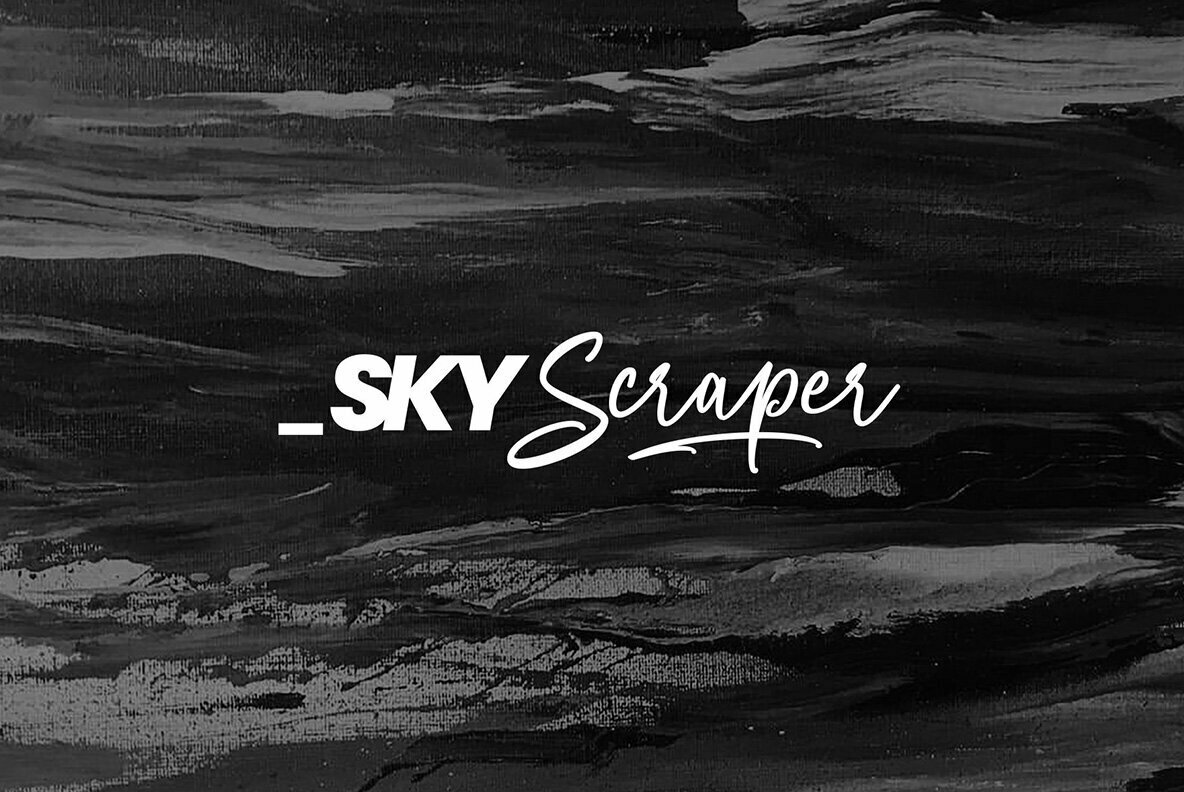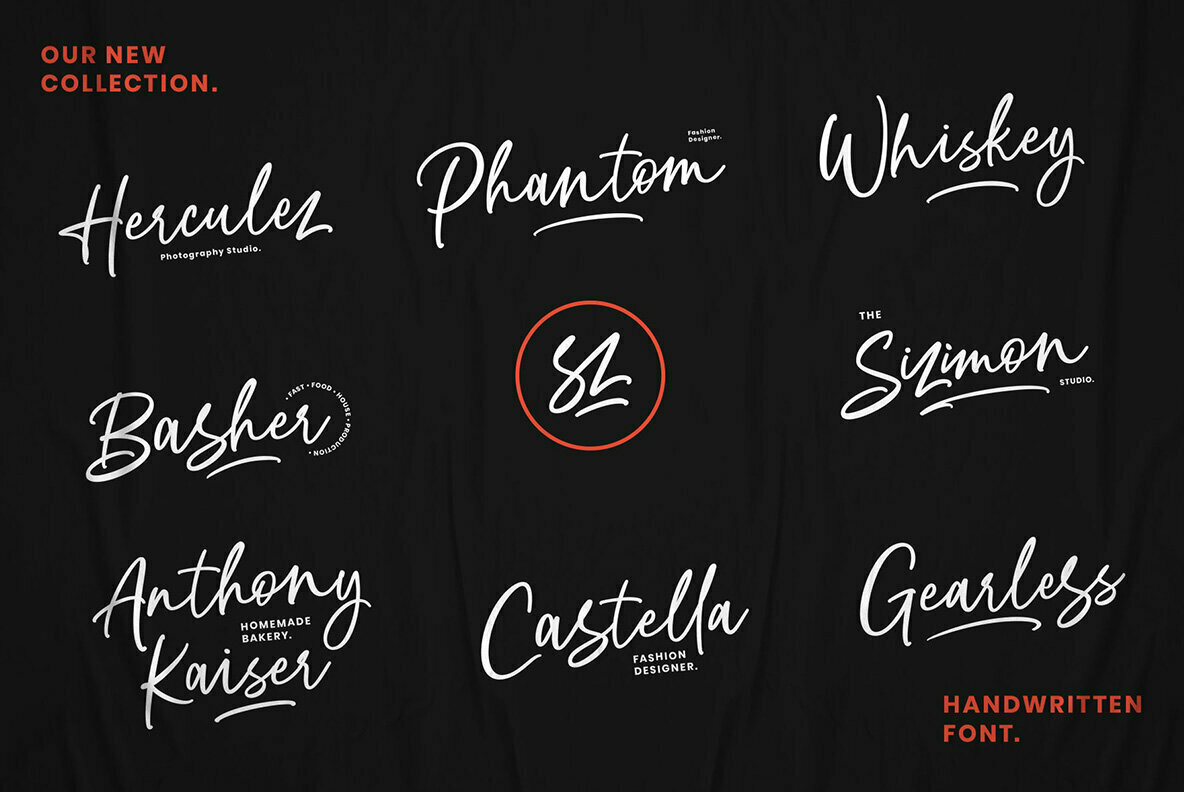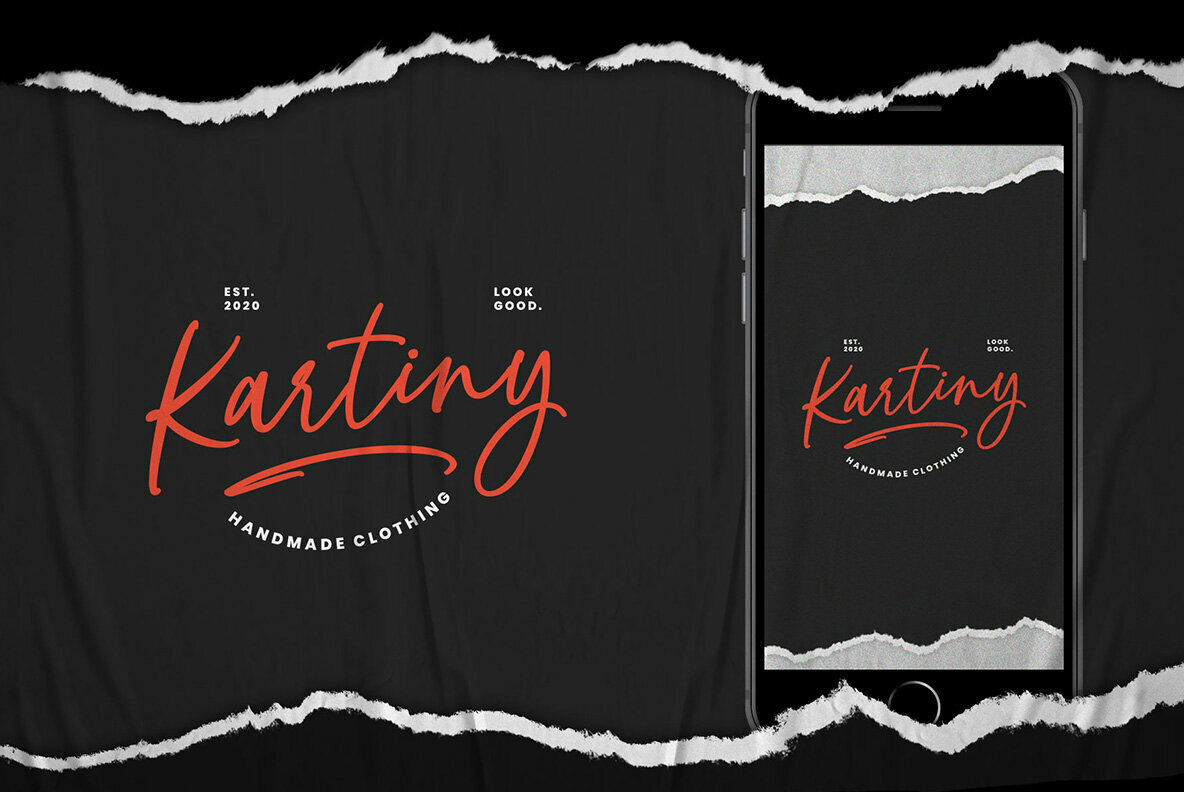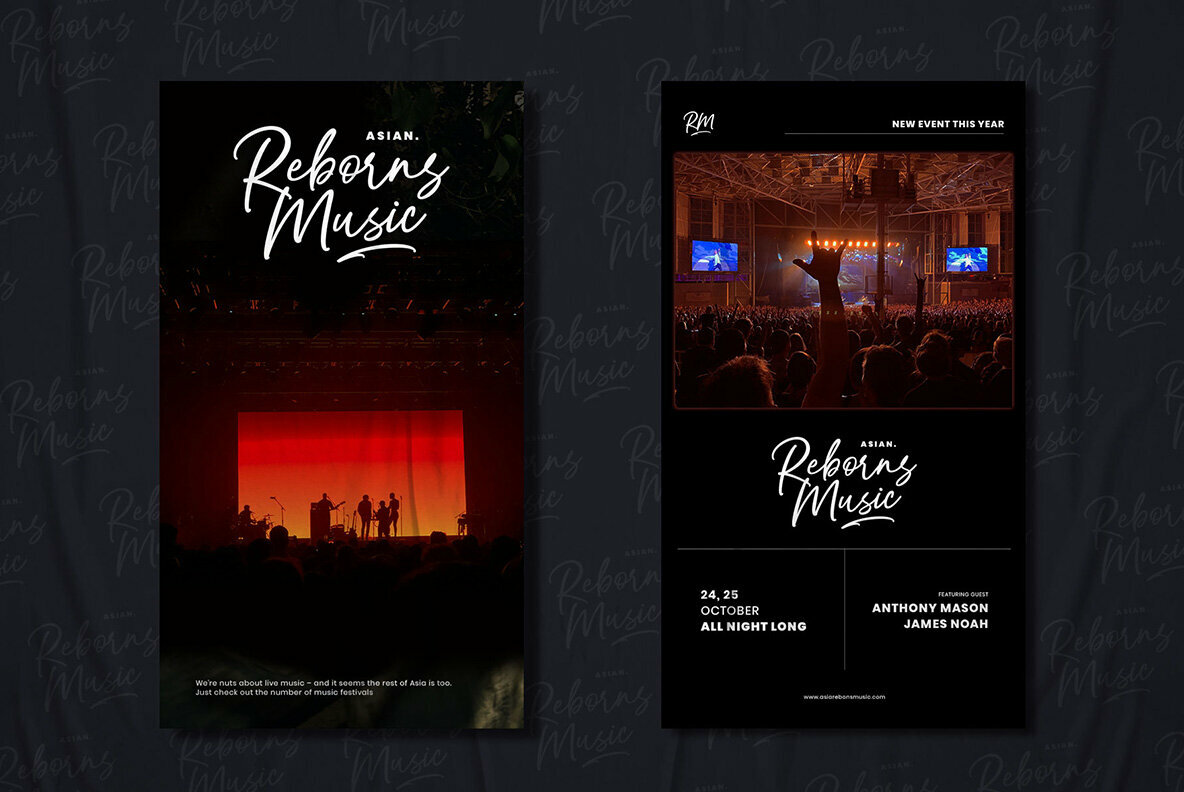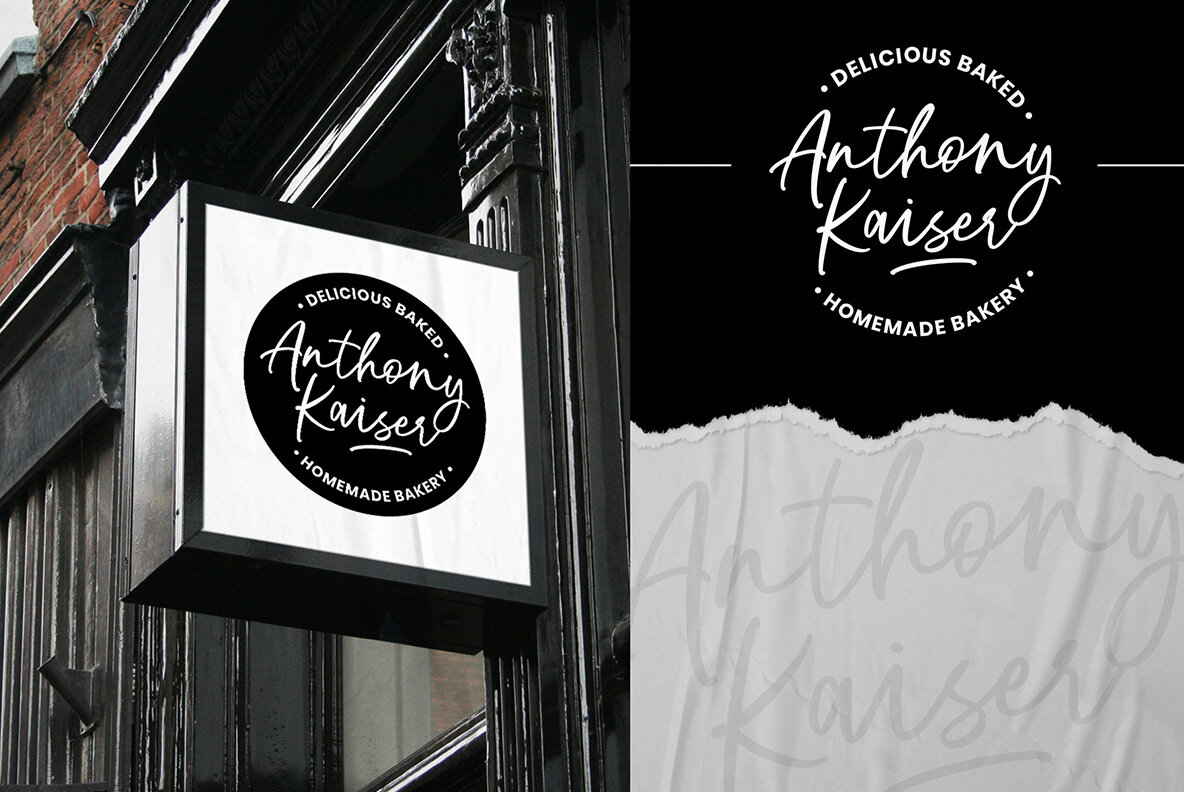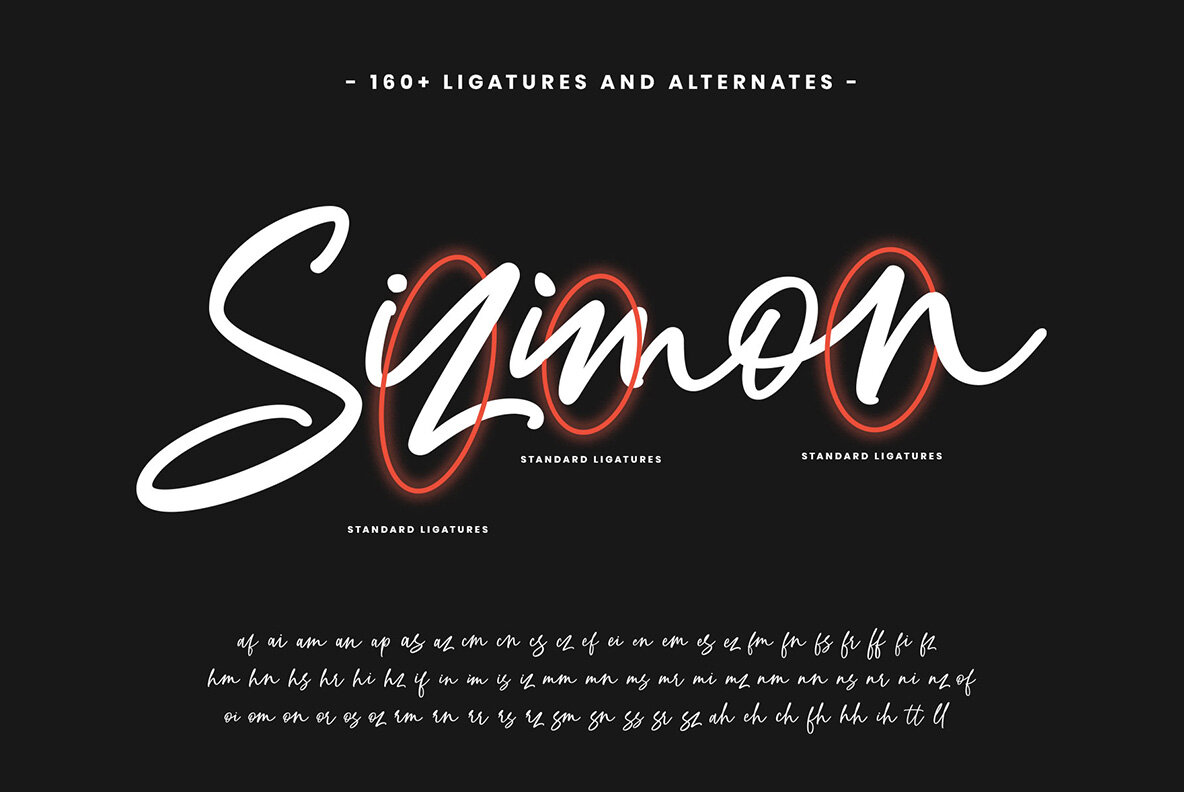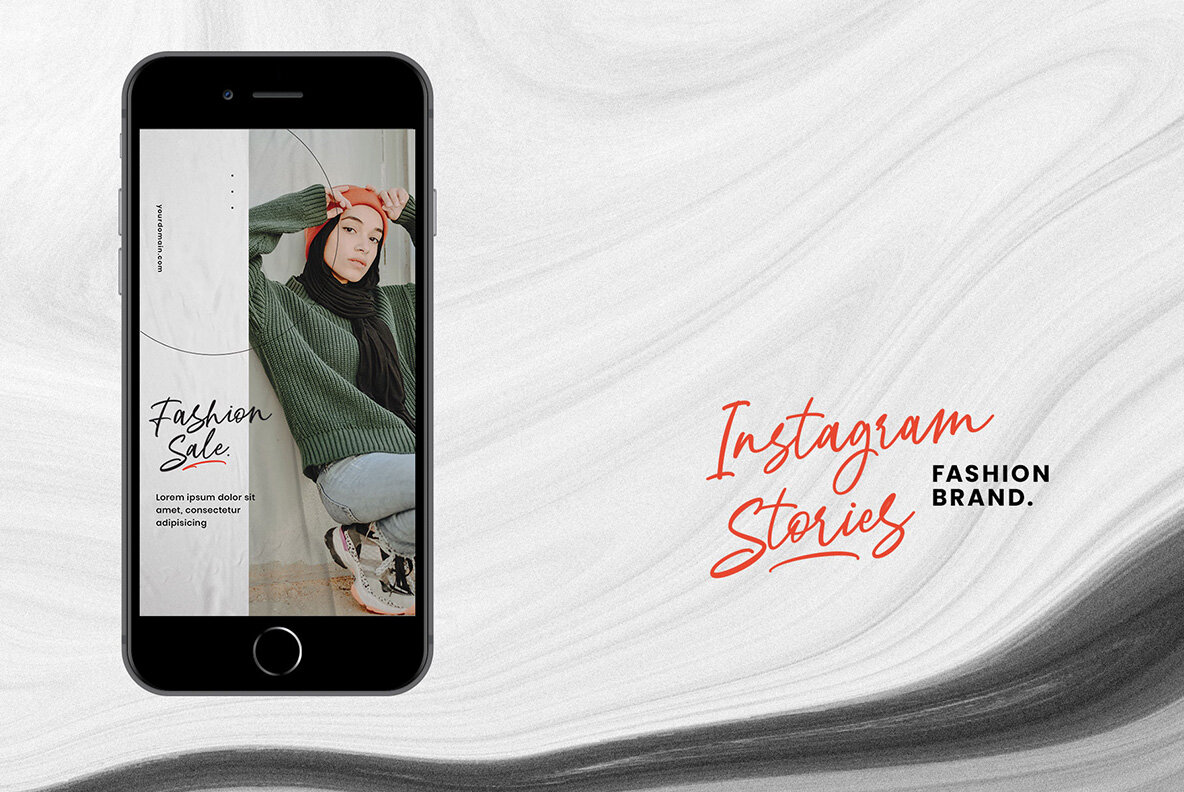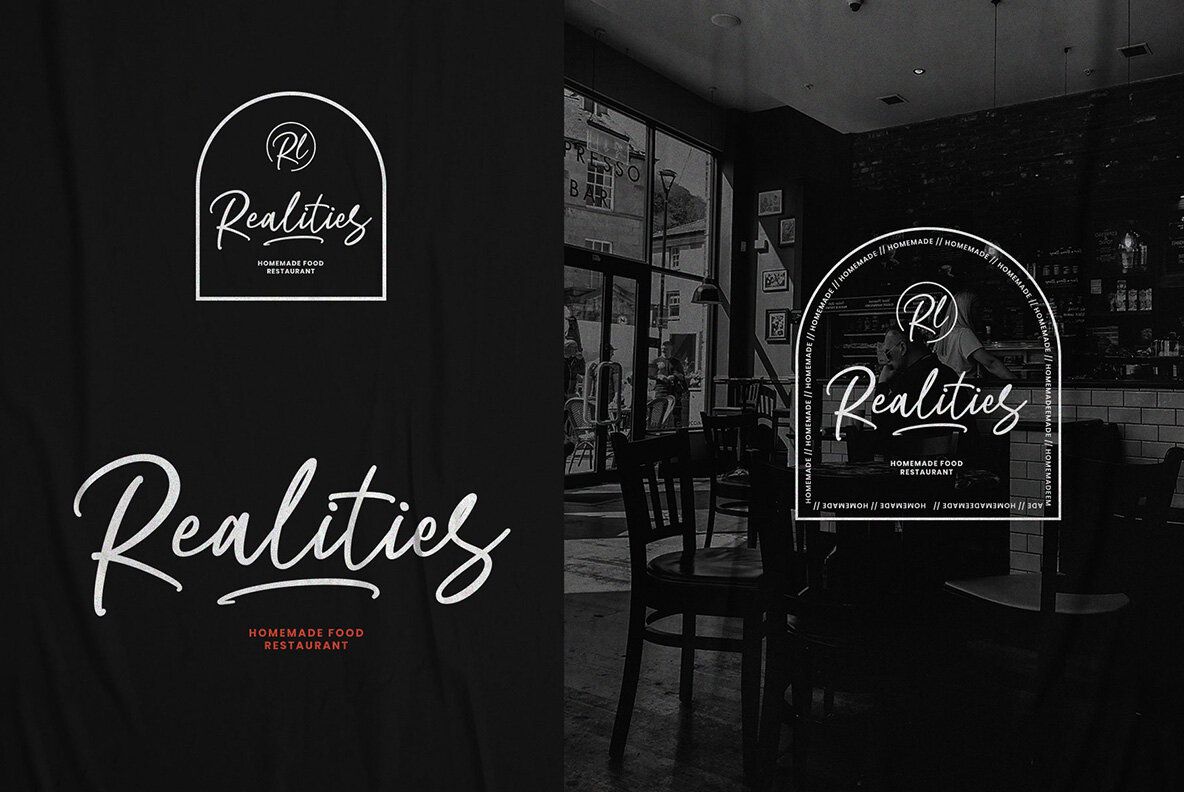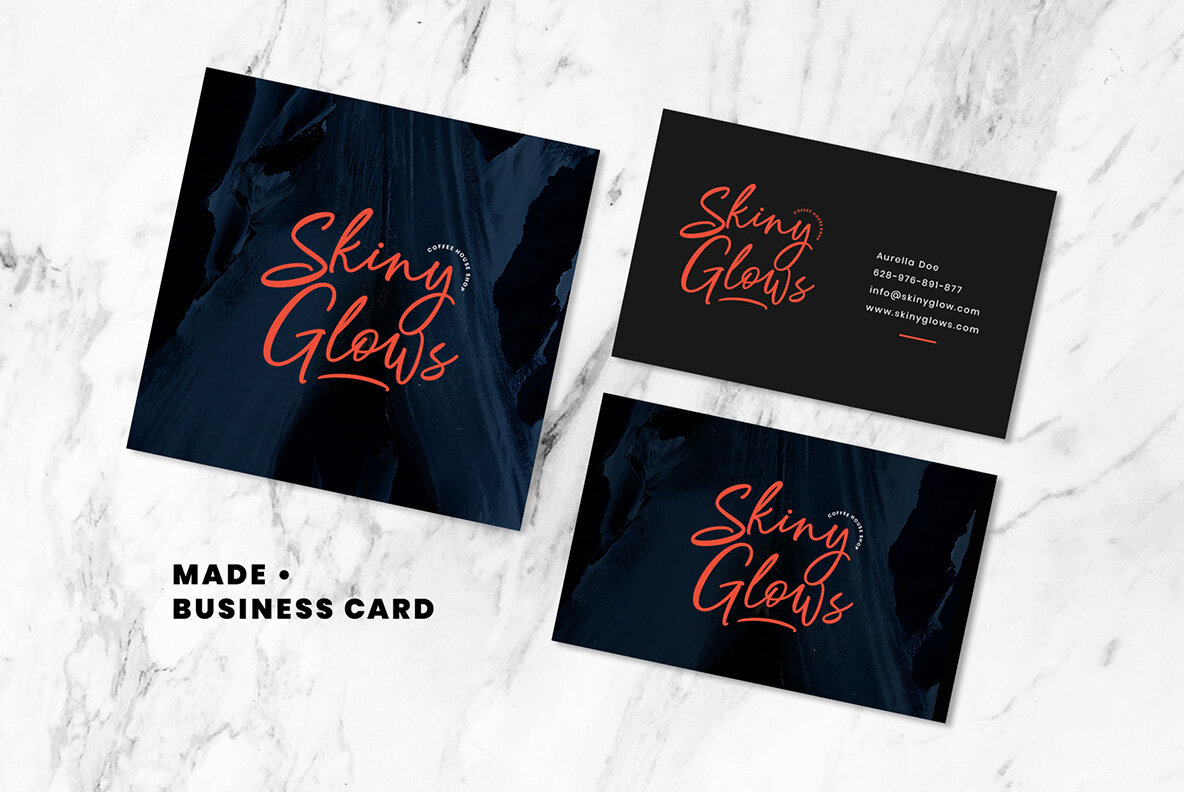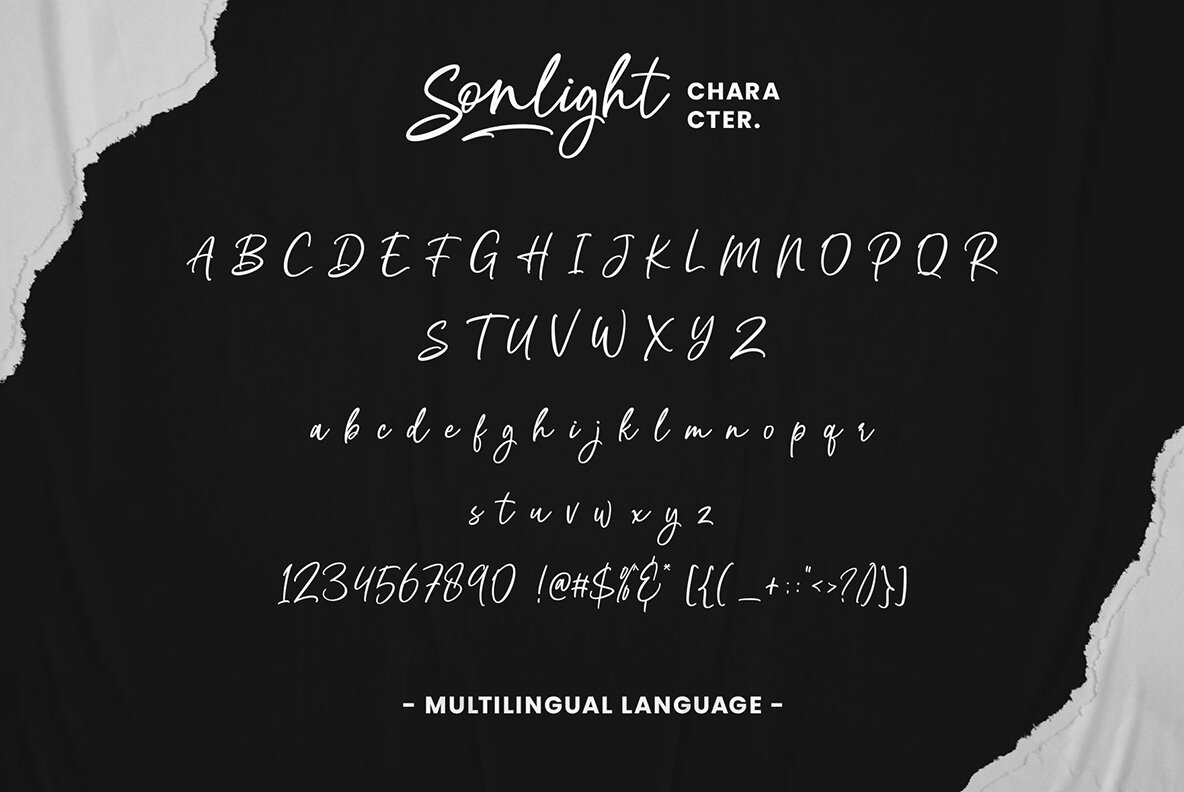
Sonlight Script Font
Embodying a blend of creativity and practicality, Sonlight Script offers an excellent solution for designers who crave individuality and elegance. This handwritten font set proves ideal for logos, name tags, product packaging, and more, providing a personal touch to any design project. With Sonlight Script, creating standout t-shirts, merchandise, and greeting cards becomes an effortless experience, saving valuable time while achieving aesthetic precision. Features:Sonlight Script: Versatile Handwritten Font